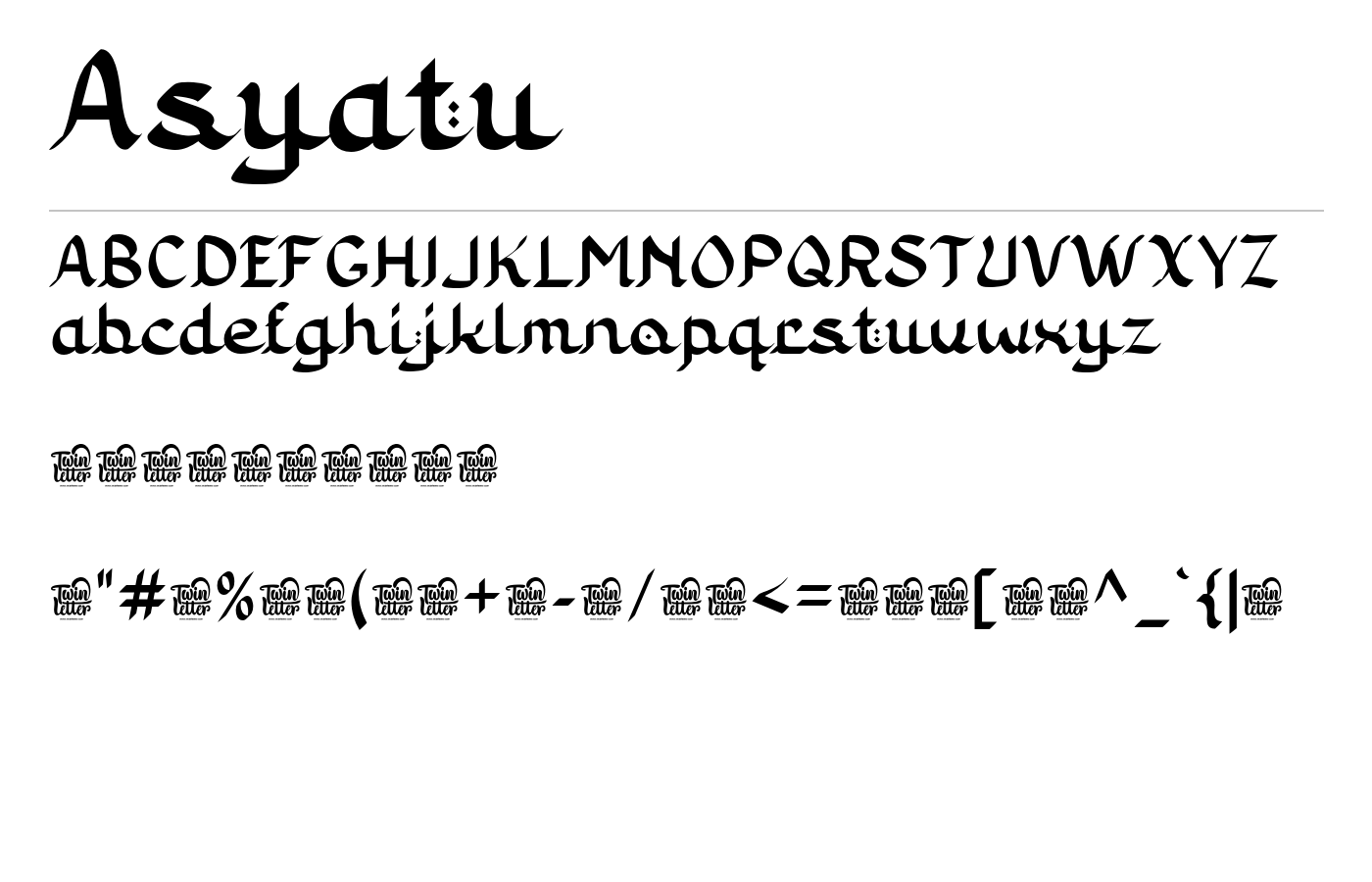
Asyatu is a distinctive serif font with a calligraphic influence, featuring sharp, angled strokes and medium contrast that give it a dynamic and artistic feel. Its unique letterforms, including pointed serifs and stylized curves, make it ideal for creative branding, headlines, and editorial design where a touch of elegance and personality is desired. This font works well in contexts that seek to combine a traditional serif structure with a modern, handcrafted flair.
Asyatu Font
About Asyatu Font